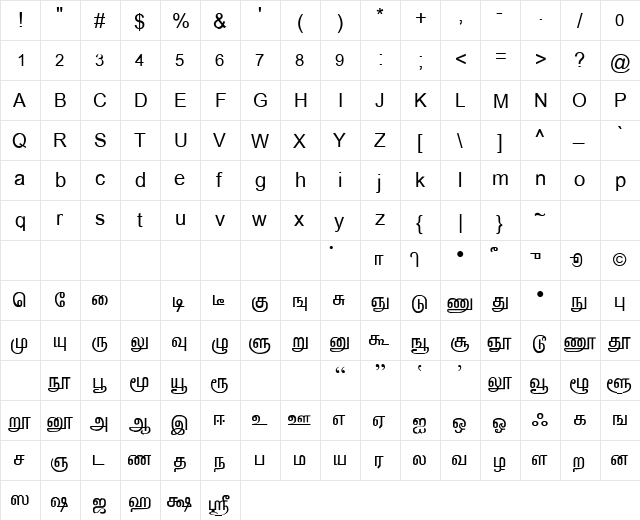
TAB-LT-Lakshman Regular Font Preview
TAB-LT-Lakshman Regular
TAB-LT-Lakshman Regular Font Details
Design Context for TAB-LT-Lakshman Typeface
TAB-LT-Lakshman offers clean, dependable letterforms without strong stylistic allegiance, making it a practical choice for designers who need flexibility. Its slender proportions lend an understated elegance to any composition.